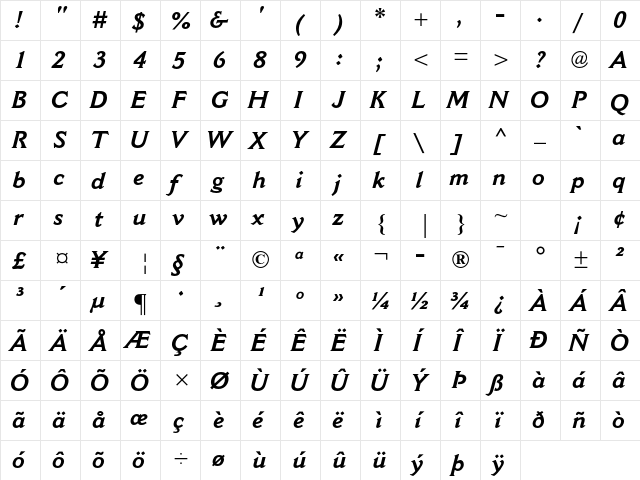
Cantoria MT Std Bold Italic
| Designer | Ron Carpenter |
Design Context for Cantoria MT Std Typeface
Cantoria MT Std is a composed and adaptable typeface that performs quietly and consistently across a wide range of design contexts. Its italic angle brings a sense of urgency and motion to the letterforms. Its bold stroke weight gives it real presence on the page.
Pro Tip: Try Cantoria MT Std for annotation and caption copy alongside an upright companion — the contrast in angle creates a dynamic but ordered typographic system.